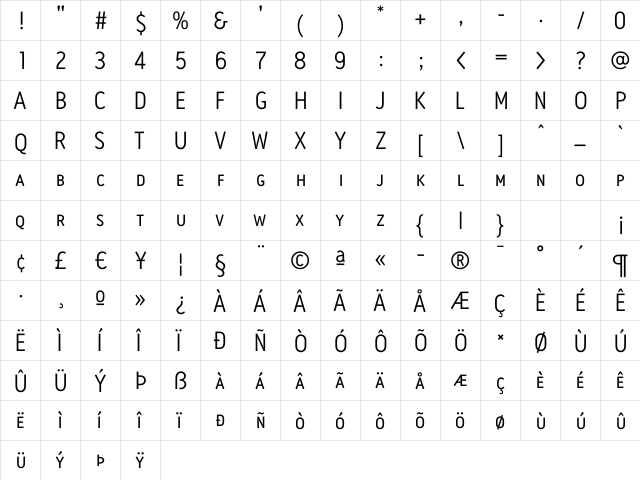
AntitledBook Caps Regular Font Preview
AntitledBook Caps Regular
AntitledBook Caps Regular Font Details
Design Context for AntitledBook Caps Typeface
AntitledBook Caps takes a measured approach to typography — its balanced proportions and neutral character make it a reliable workhorse for both digital and print work.